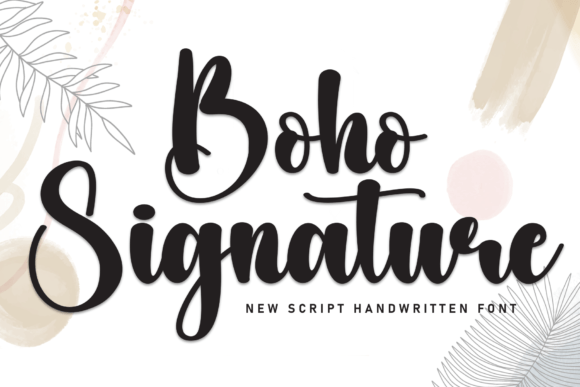
Introducing Boho Signature Font: Add a Personal Touch to Your Designs
Are you looking for a font that can add a dash of personality and flair to your creative projects? Look no further than Boho Signature Font! This lively handwritten font is designed to make a statement with its bold and expressive style. In this article, we’ll dive into the unique features of Boho Signature Font and explore how it can elevate your designs.
The Charm of Boho Signature Font
Boho Signature Font is a one-of-a-kind typeface that exudes a sense of playfulness and spontaneity. Its bold and expressive style is perfect for designers and crafters who want to add a personal touch to their work. The font’s unique charm lies in its imperfections and irregularities, which give it a distinctly handmade feel. Whether you’re working on a branding project, a craft tutorial, or a social media graphic, Boho Signature Font is sure to make your design stand out.
Key Features of Boho Signature Font
- Handwritten style: Boho Signature Font is a handwritten font that captures the essence of personal, human touch.
- Bold and expressive: The font’s bold and expressive style makes it perfect for headlines, titles, and emphasis text.
- Unique charm: Boho Signature Font’s imperfections and irregularities give it a distinctly handmade feel.
- Versatile: The font is suitable for a wide range of design projects, from branding and advertising to crafting and DIY tutorials.
Uses for Boho Signature Font
Boho Signature Font is a versatile typeface that can be used in a variety of design projects. Here are some ideas to get you started:
- Branding and logos: Use Boho Signature Font to create a unique and memorable logo that reflects your brand’s personality.
- Crafting and DIY tutorials: Add a personal touch to your crafting and DIY tutorials with Boho Signature Font’s playful and expressive style.
- Social media graphics: Use Boho Signature Font to create eye-catching social media graphics that stand out from the crowd.
- Invitations and stationery: Boho Signature Font is perfect for creating unique and personalized invitations, greeting cards, and stationery.
Tips for Using Boho Signature Font
Here are some tips for getting the most out of Boho Signature Font:
- Use it sparingly: Boho Signature Font is a bold and expressive font, so use it sparingly to avoid overwhelming your design.
- Pair it with a neutral font: Pair Boho Signature Font with a neutral font to create contrast and visual interest.
- Experiment with colors: Boho Signature Font looks great in a variety of colors, so don’t be afraid to experiment and find the perfect hue for your design.
Boho Signature Font is a unique and expressive typeface that can add a personal touch to any design. Its bold and playful style makes it perfect for creative projects that need a bit of flair and personality. With its versatility and charm, Boho Signature Font is sure to become a favorite among designers and crafters. So why not give it a try and see how it can elevate your designs?